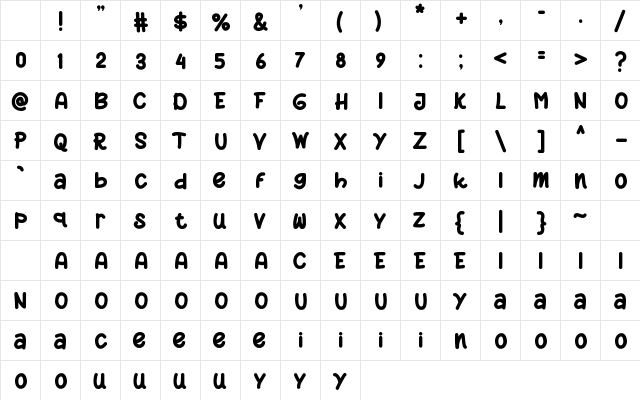
Complete FUNKOZ Regular glyph index. Displaying only characters natively supported by FUNKOZ Regular font.
FUNKOZ has an approachable, lighthearted character - its loose, expressive forms are well-suited to children's content, casual branding, and fun-first design.
Font Pairing: Pairs well with a rounded or humanist sans for body copy, maintaining the friendly tone without relying on FUNKOZ to carry extended reading.
Pro Tip: Use FUNKOZ at larger display sizes where its expressive character can land. Pair with a clean, simple sans for body copy to maintain readability.